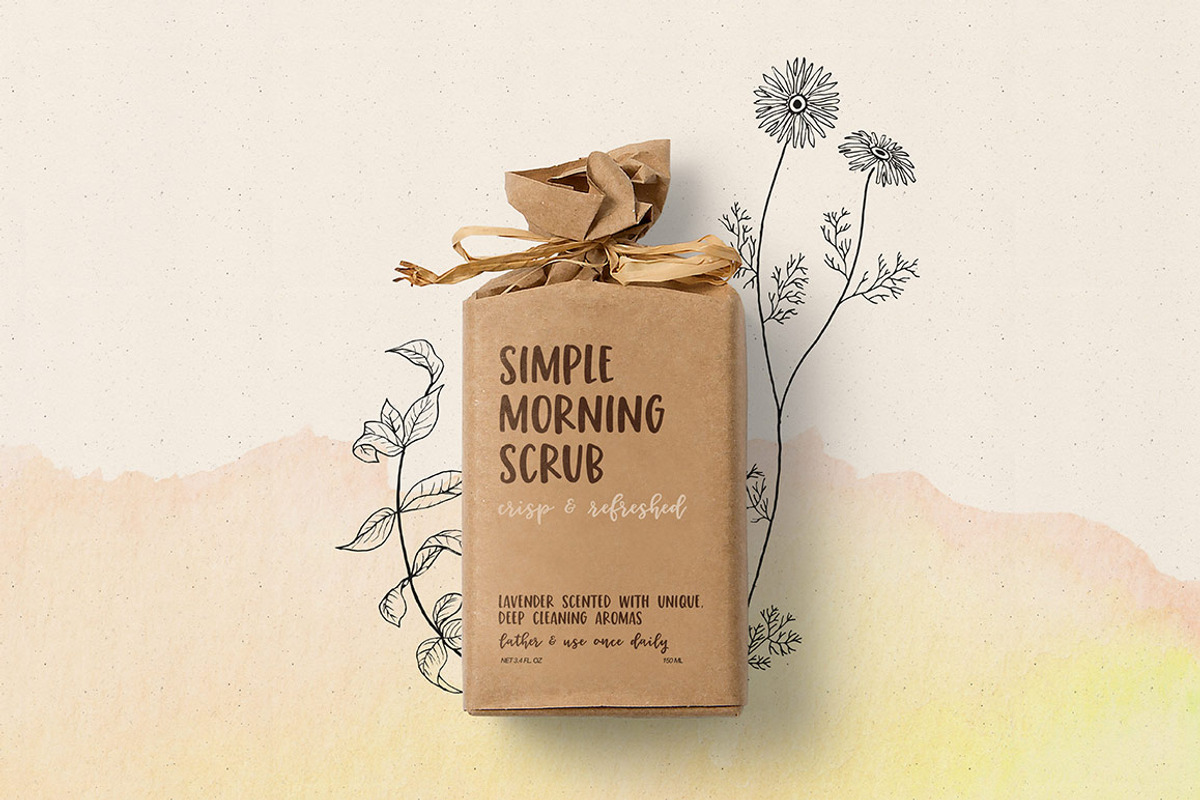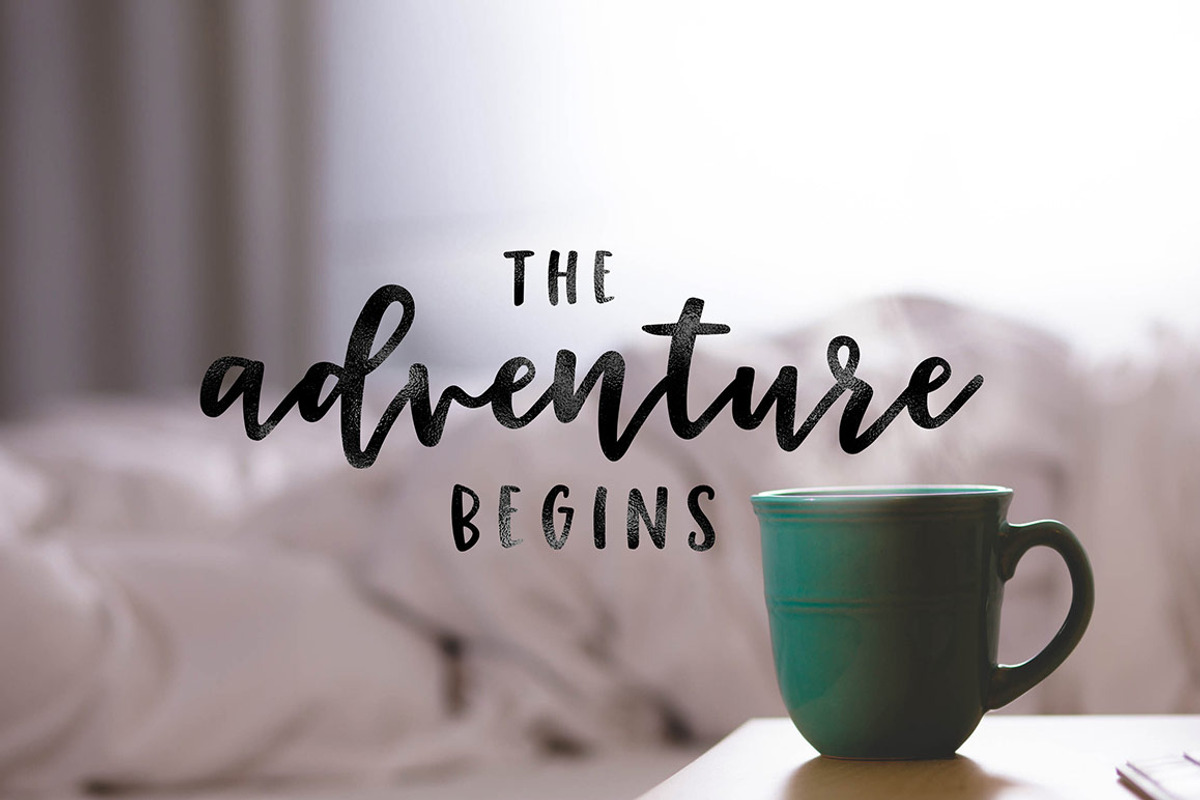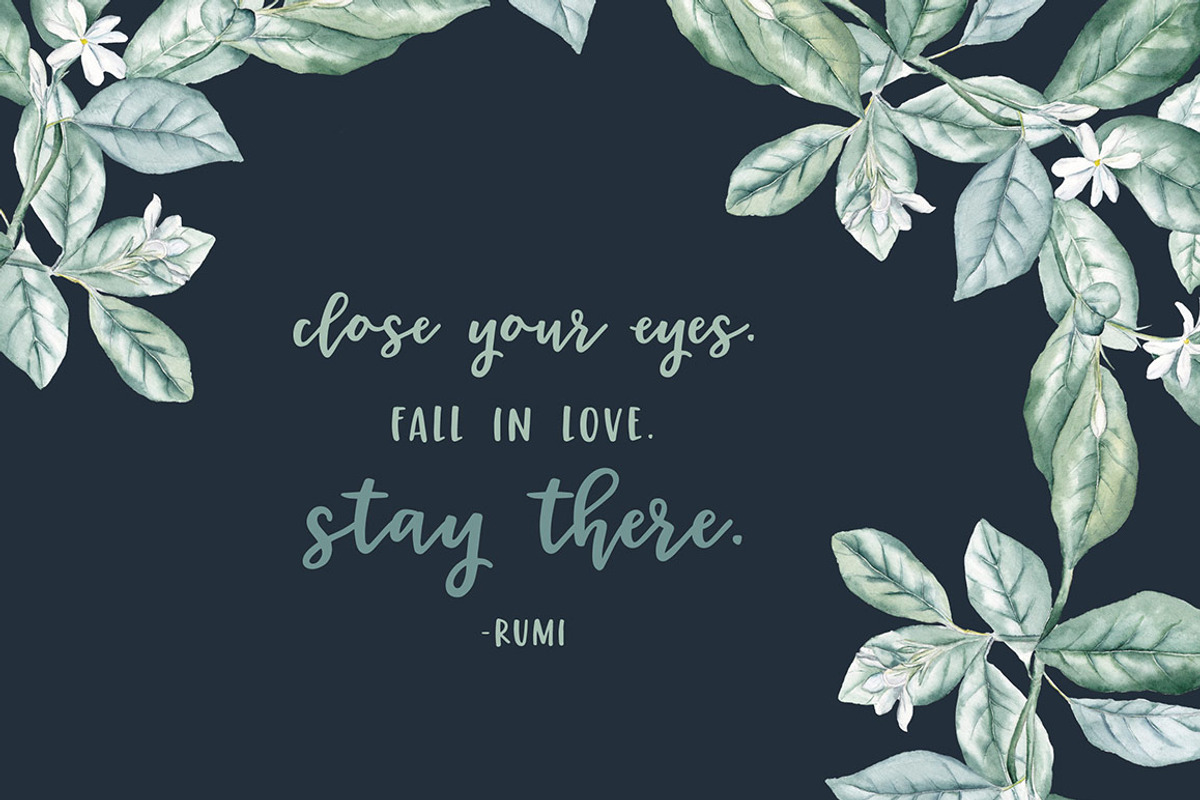
Personality-pack your designs with Miss Magnolia; a bouncy script filled with Southern charm. Perfect for greeting cards, branding, stationery design, social media, packaging, magazine layouts, prints and more!
Utilize all caps for a completely alternate style, or mix and match lowercase script + all caps for creative designs.
Miss Magnolia has a variety of unique, coded features to create compelling, handmade outcomes: 2 stylistic alternates, 6 initial characters, 1 end character, 3 discretionary ligatures and 10 standard ligatures.